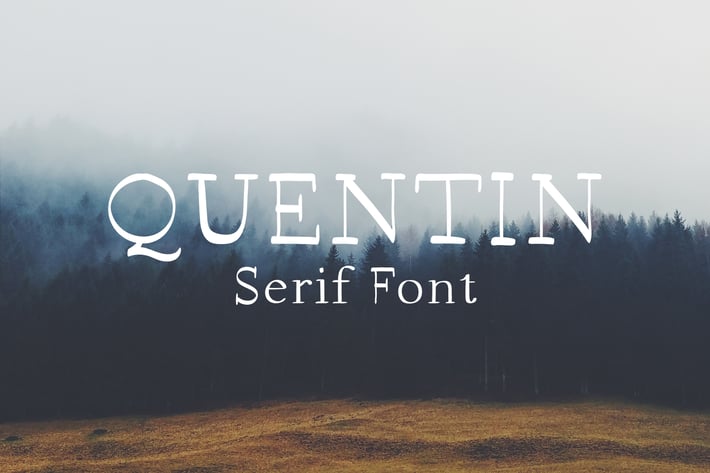
Quentin Handmade Serif Font
Quentin Serif includes uppercase and lowercase letters, numerals and punctuation and it's a great choice for titles, writing, logos and prints.